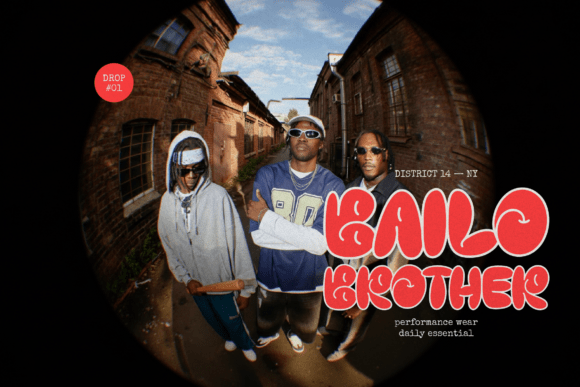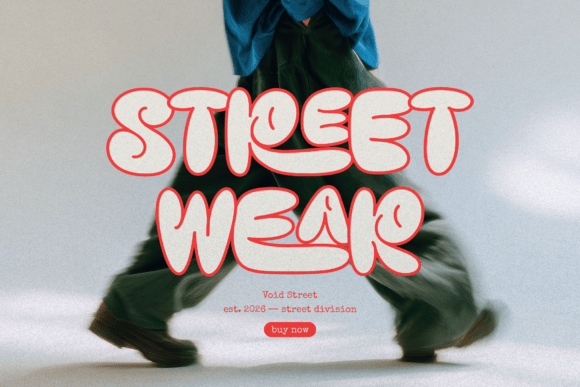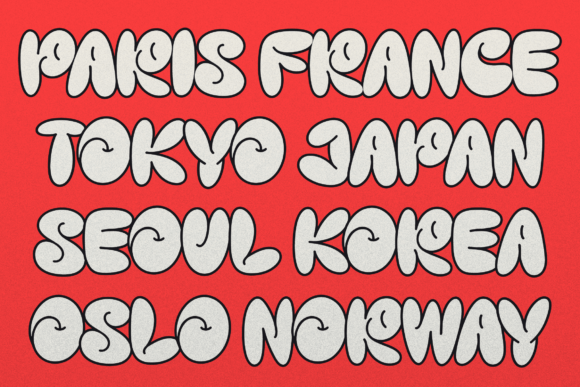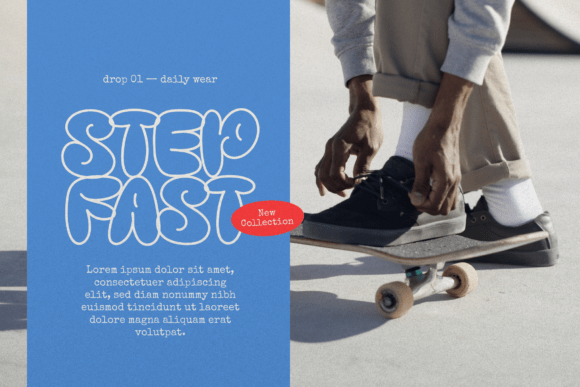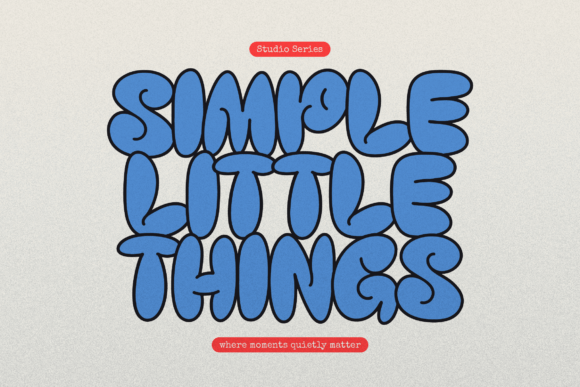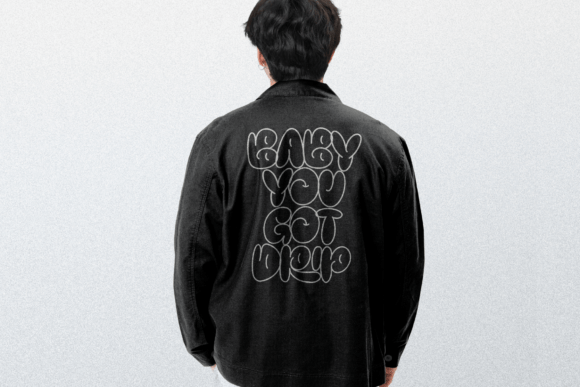
Introducing Crustte Bubbly: The Ultimate Display Font for Retro Pop Designs
Are you looking for a font that can add a vibrant, retro pop touch to your designs? Look no further than Crustte Bubbly, a hand-drawn display font that’s bursting with high-energy charm. This ultra-thick, pillowy typeface is characterized by exaggerated curves and unique, swirling internal flourishes that add a sense of movement and psychedelic flair to any design.
The Unique Features of Crustte Bubbly
Crustte Bubbly’s unique features make it an exceptional choice for designers and crafters looking to create custom-looking layouts. The font’s playful, “puffy” aesthetic and bold presence make it perfect for 70s-inspired posters, funky streetwear branding, creative sticker designs, and standout social media headlines. The exaggerated curves and swirling internal flourishes give the font a sense of movement and energy, making it ideal for designs that need to grab attention.
One of the best things about Crustte Bubbly is its incredible versatility. The font can be used for a wide range of design projects, from logos and branding to merchandise and social media graphics. Whether you’re crafting a logo for a trendy lifestyle brand or designing eye-catching merchandise, Crustte Bubbly delivers a sense of joyful nostalgia and soft, tactile impact to every word.
Inspiration from the 70s
Crustte Bubbly is heavily inspired by the design trends of the 1970s. The font’s bold, playful aesthetic is reminiscent of the era’s iconic posters, flyers, and advertisements. If you’re looking to create designs that evoke a sense of nostalgia and retro charm, Crustte Bubbly is the perfect choice.
Crustte Bubbly is a font that’s designed with designers and crafters in mind. The font’s hand-drawn nature and unique features make it perfect for creating custom-looking designs that stand out from the crowd. Whether you’re a professional designer or a DIY crafter, Crustte Bubbly is a great addition to your design toolkit.
Tips for Using Crustte Bubbly
Here are a few tips for getting the most out of Crustte Bubbly:
- Use it for headlines and titles: Crustte Bubbly is perfect for grabbing attention and making a statement. Use it for headlines and titles to add a pop of personality to your designs.
- Experiment with colors: Crustte Bubbly looks great in bold, bright colors. Experiment with different color combinations to find the perfect look for your design.
- Mix it with other fonts: Crustte Bubbly can be paired with other fonts to create a unique and interesting look. Try mixing it with a clean, sans-serif font for a bold and modern contrast.
Crustte Bubbly is a unique and versatile display font that’s perfect for designers and crafters looking to add a touch of retro pop charm to their designs. With its bold, playful aesthetic and incredible versatility, Crustte Bubbly is a great addition to any design toolkit. So why not give it a try and see how it can elevate your designs to the next level?